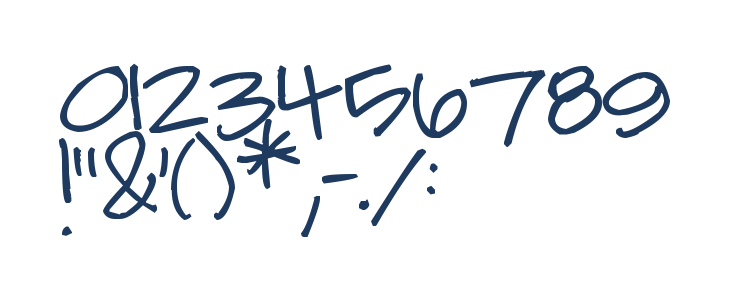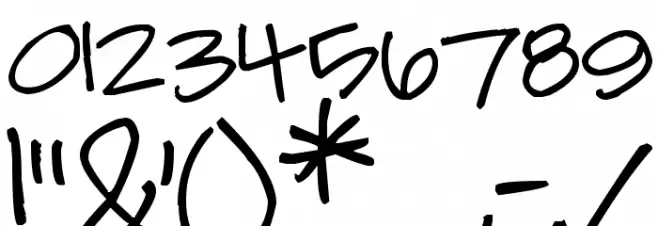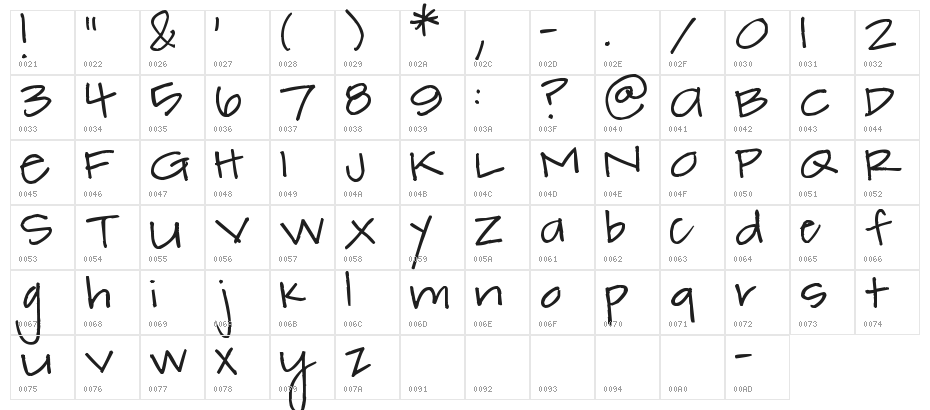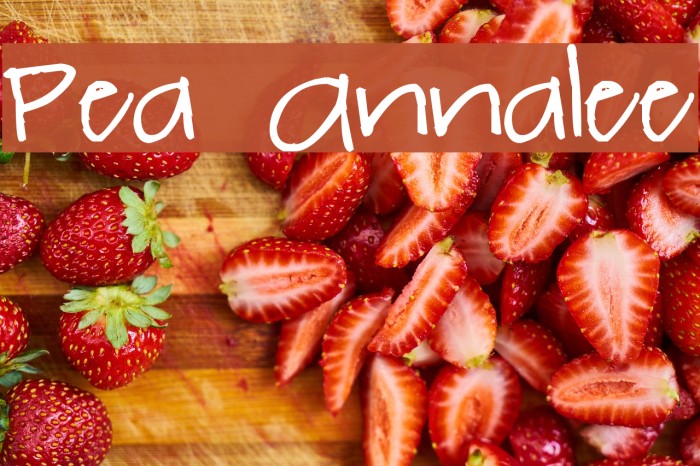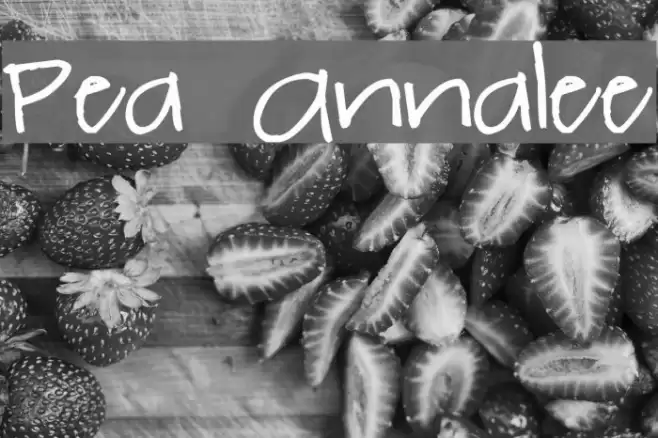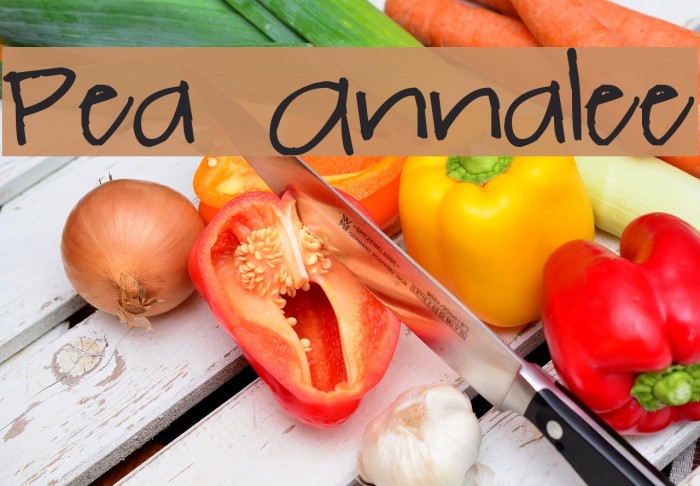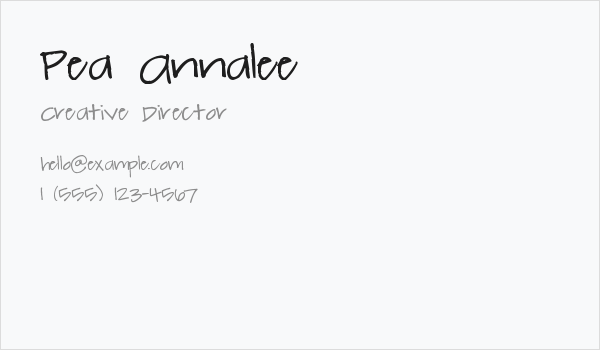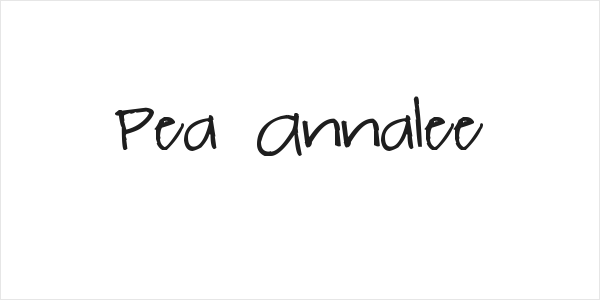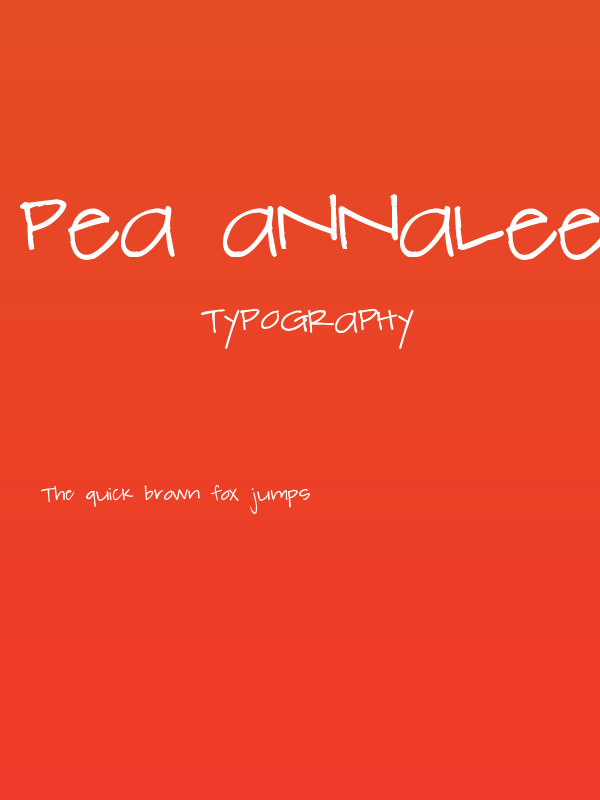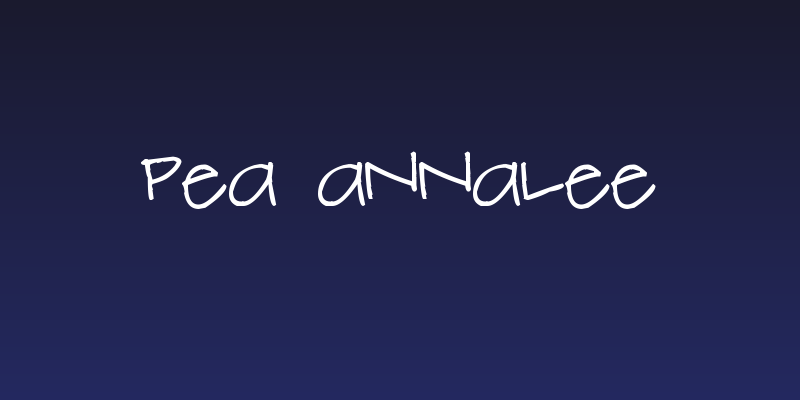
Pea Annalee Font
This font exudes a playful and casual handwritten style, characterized by its loose and flowing strokes. The letters are slightly slanted, giving it a dynamic and lively appearance. The uppercase and lowercase letters maintain a consistent style, with rounded edges and a natural, organic feel. The numbers and special characters follow the same informal aesthetic, making the font suitable for projects that require a personal touch. Its overall appearance is friendly and approachable, ideal for creative and informal designs.
| Proposed Projects | Ideal for greeting cards, personal invitations, children's books, and creative branding projects. |